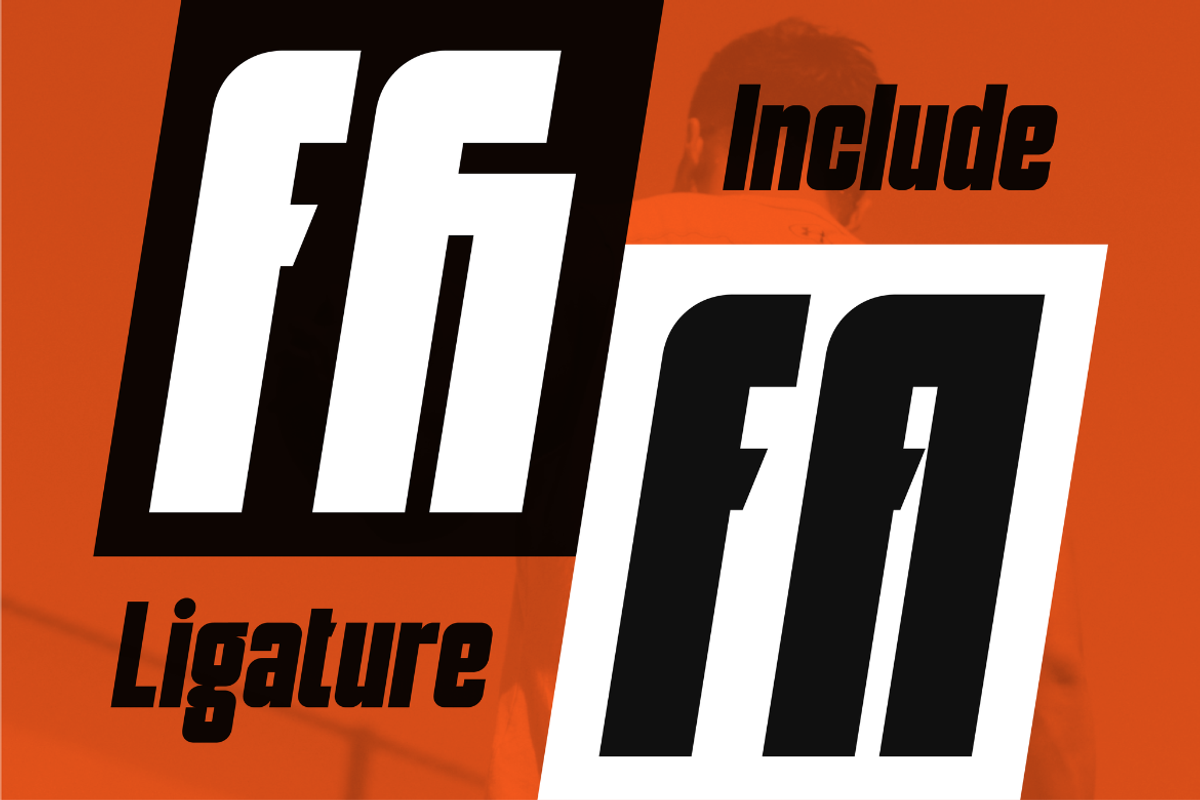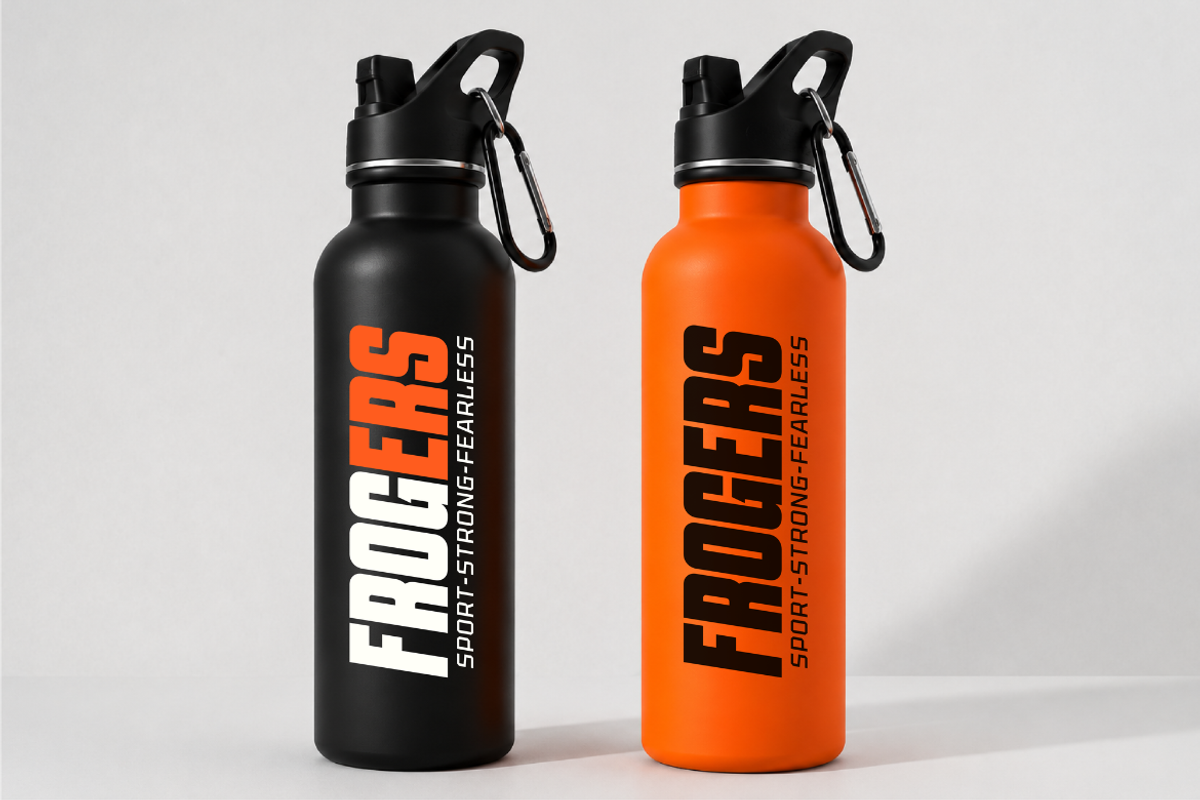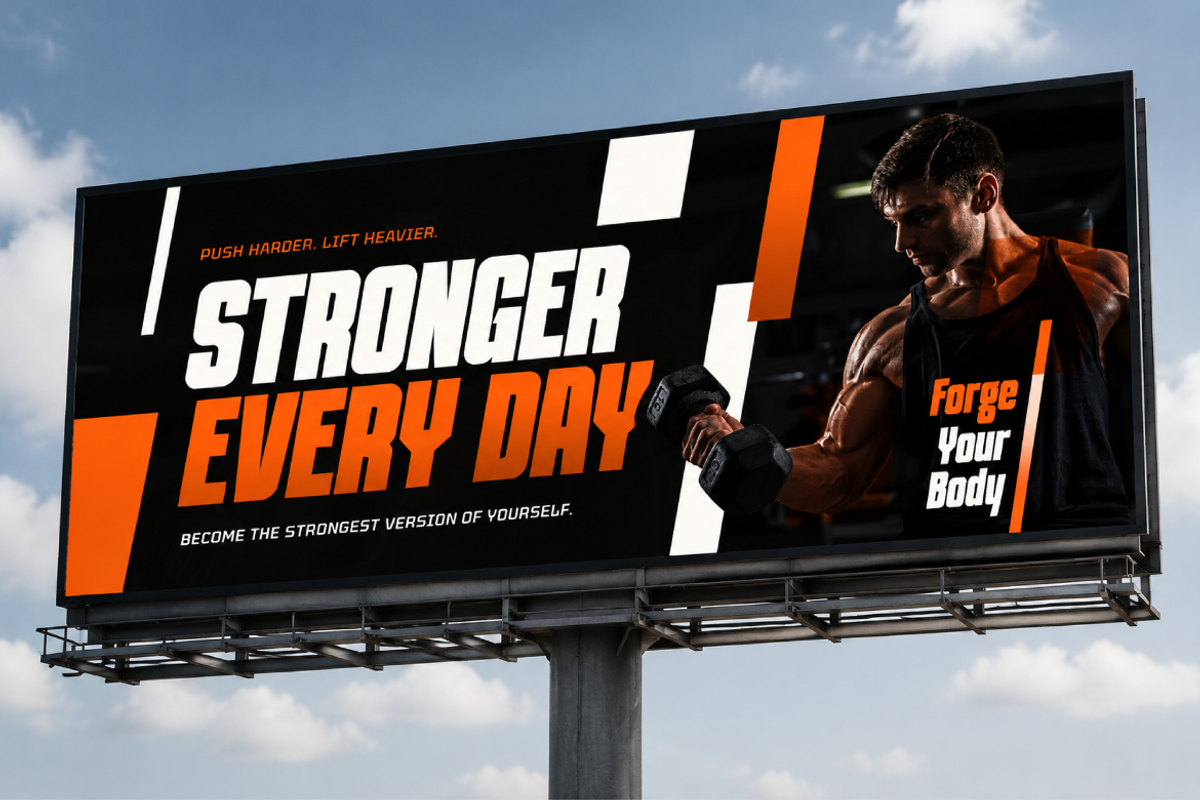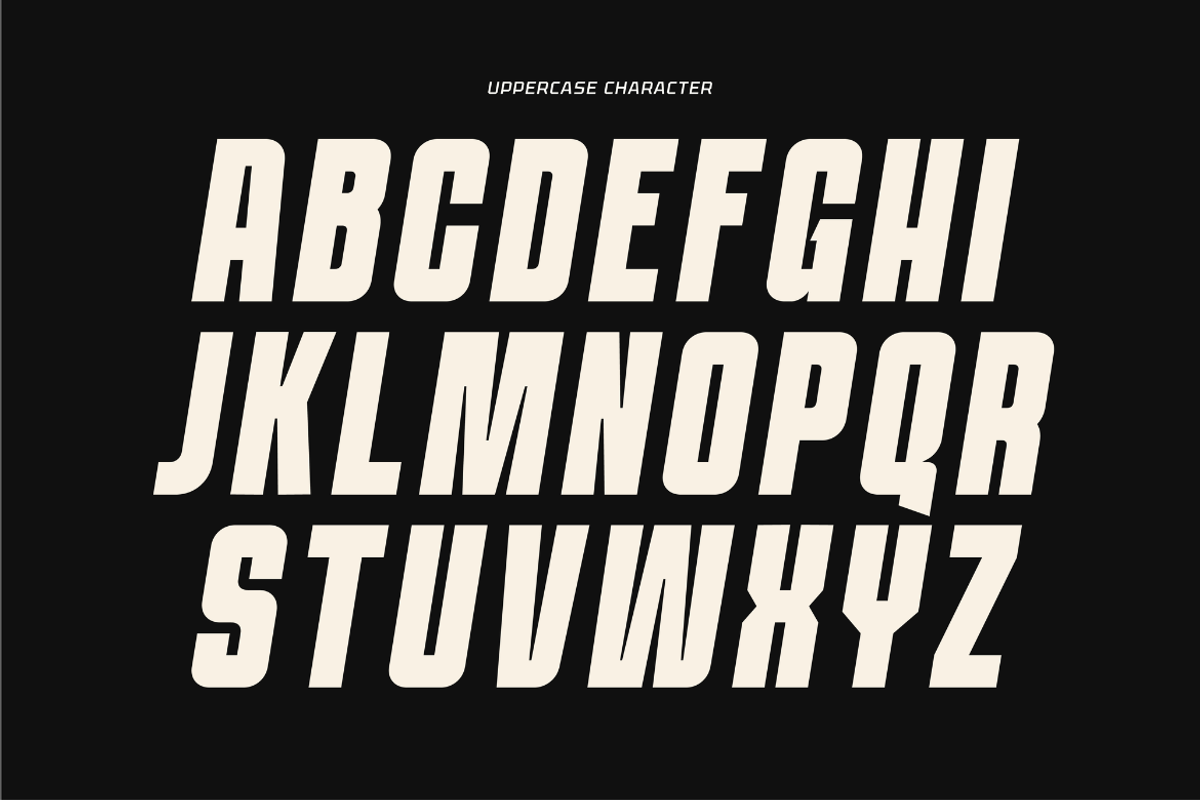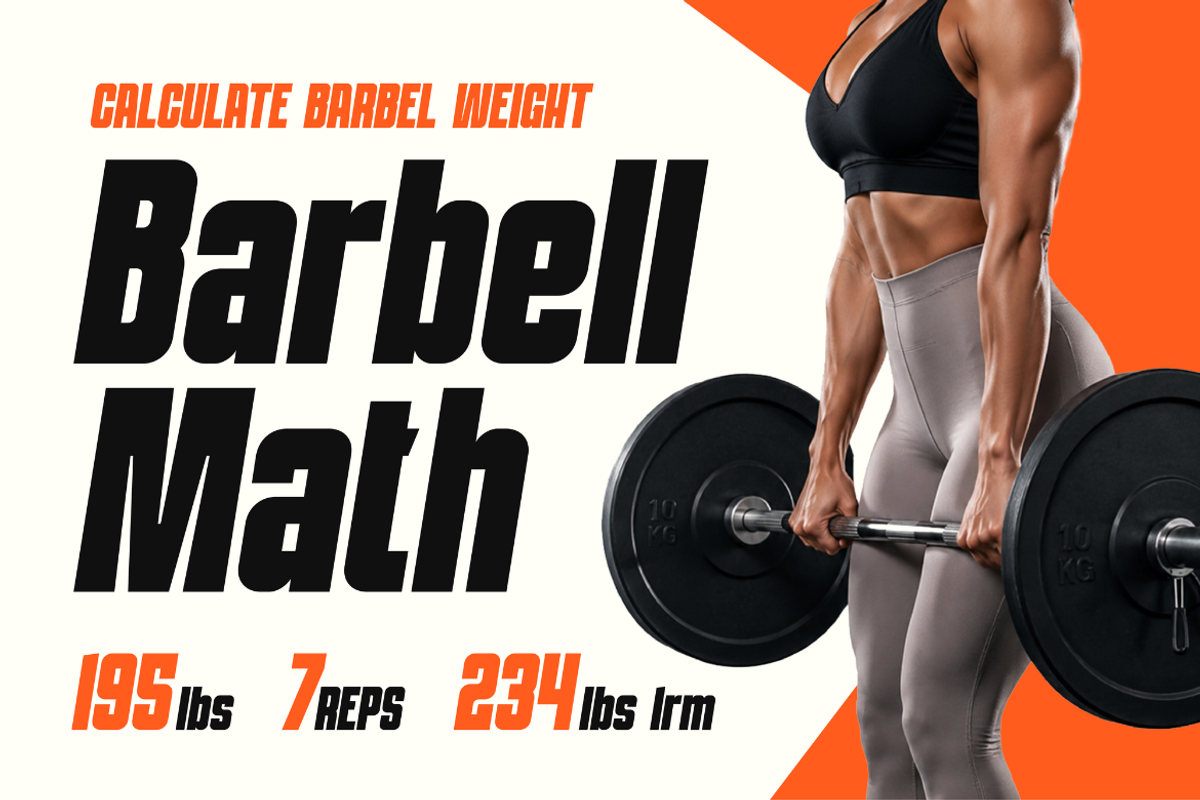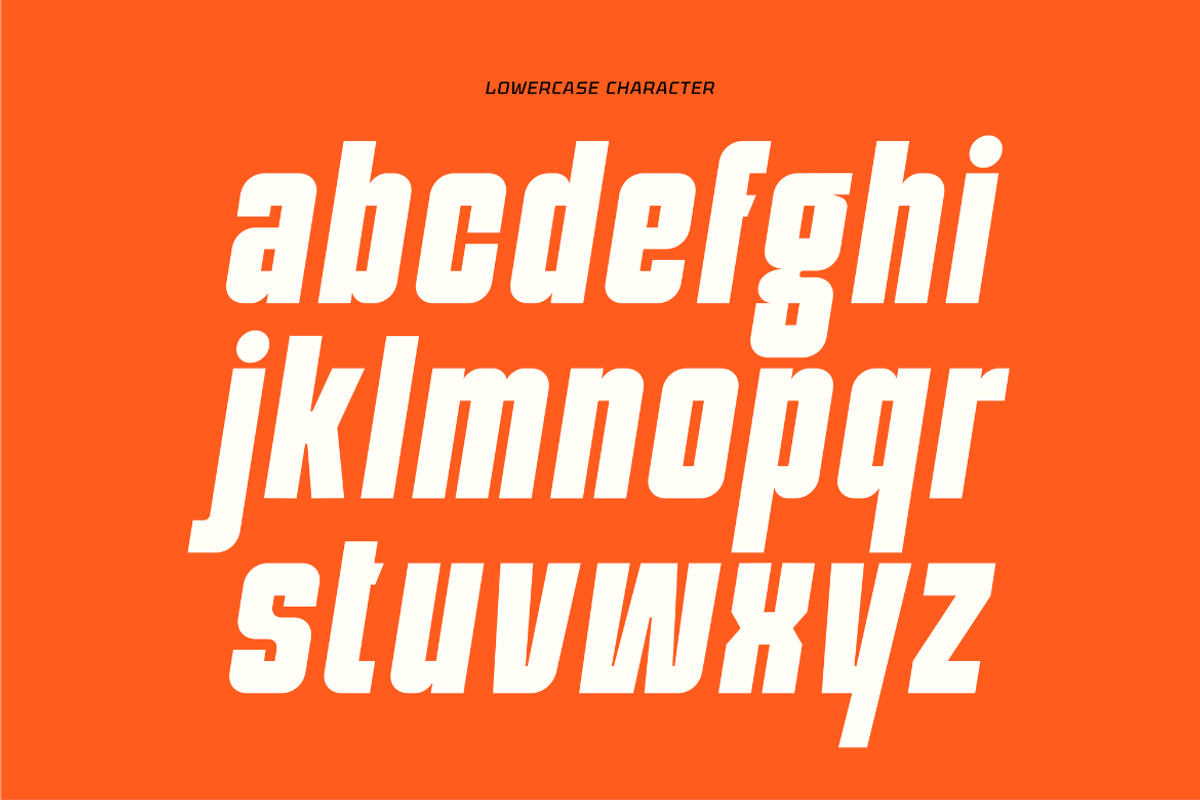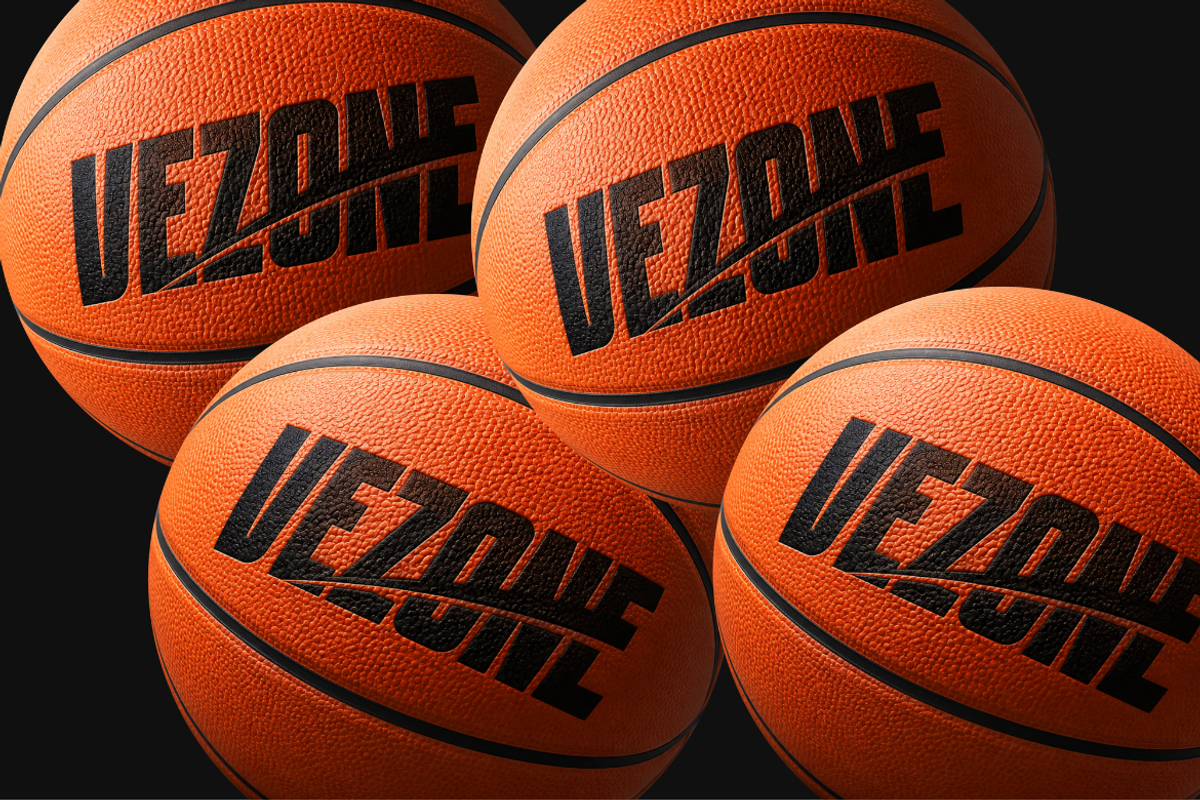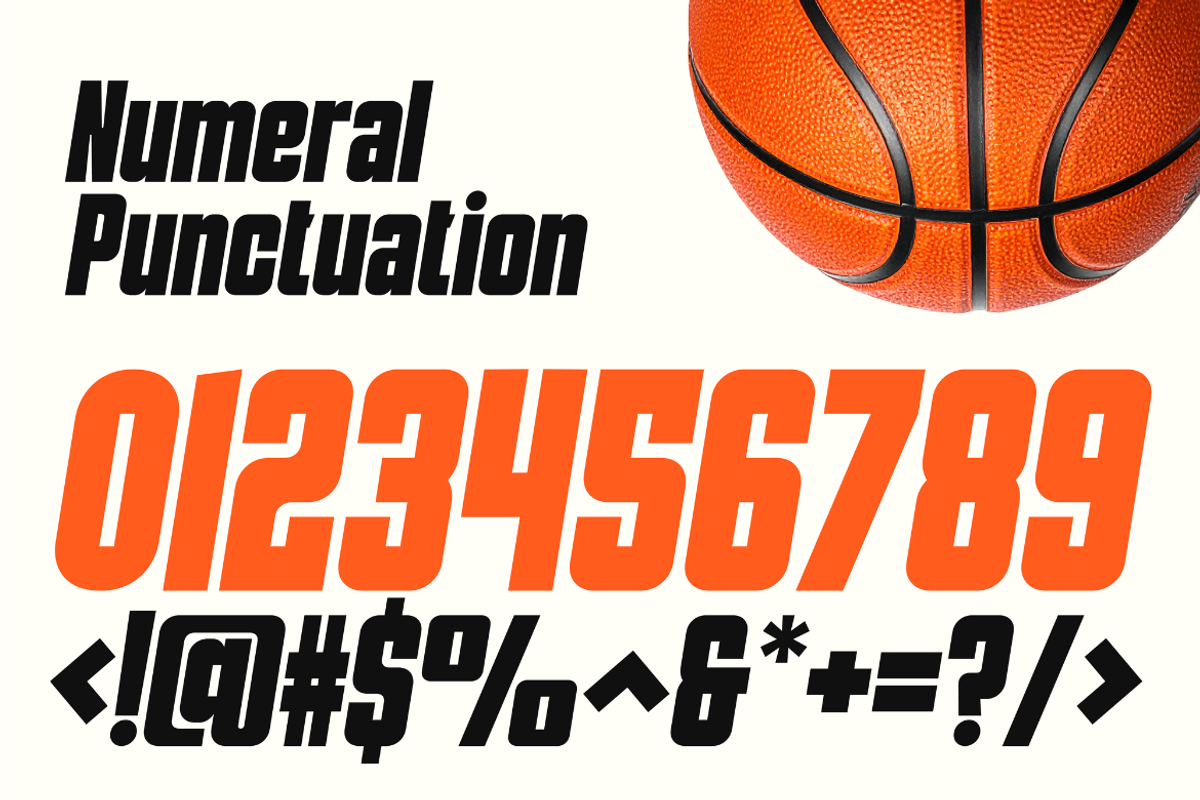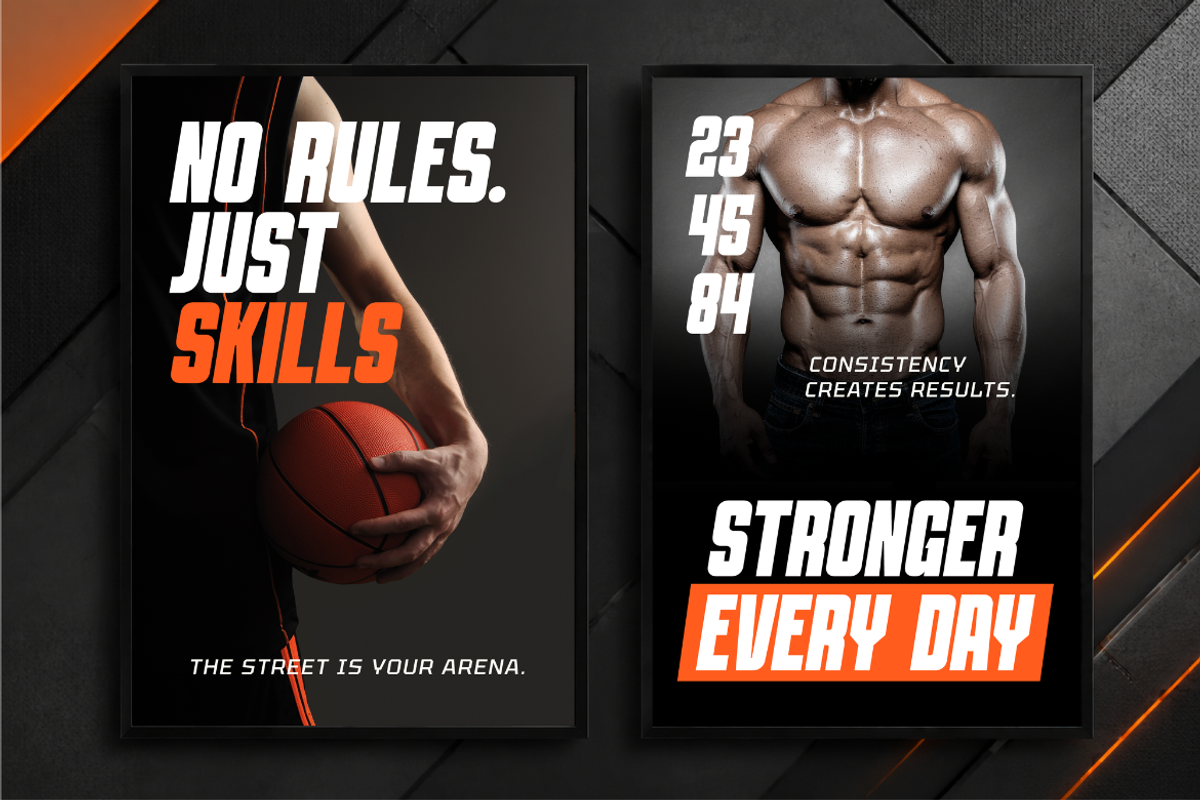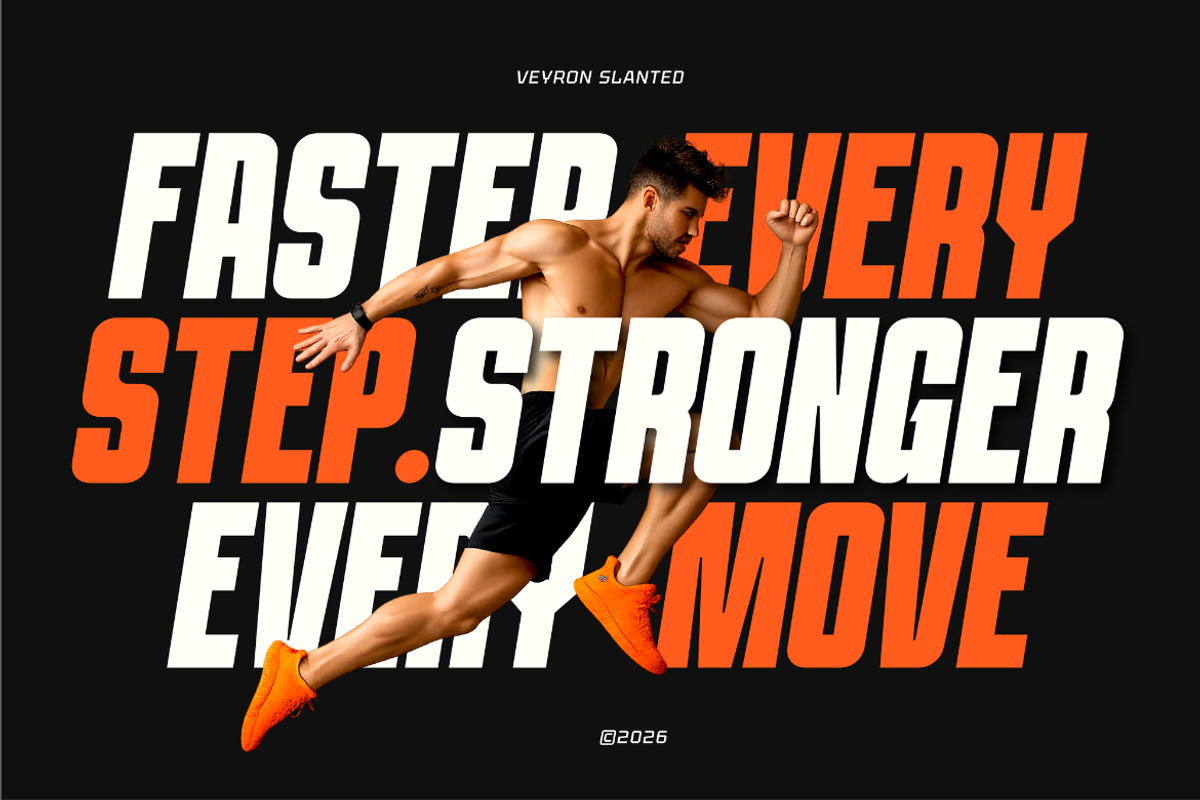
Veyron Slanted
Veyron is a high-impact bold condensed display typeface designed for powerful headlines, sports branding, and energetic visual identities. It features tall, narrow letterforms with a strong geometric structure, creating a bold and commanding appearance while maintaining a clean modern style.
Inspired by athletic culture, street sports, and competitive branding, this font delivers a sense of speed, strength, and confidence. Its condensed shape allows designers to create dramatic large-scale typography while saving space, making it ideal for posters, banners, and promotional graphics.